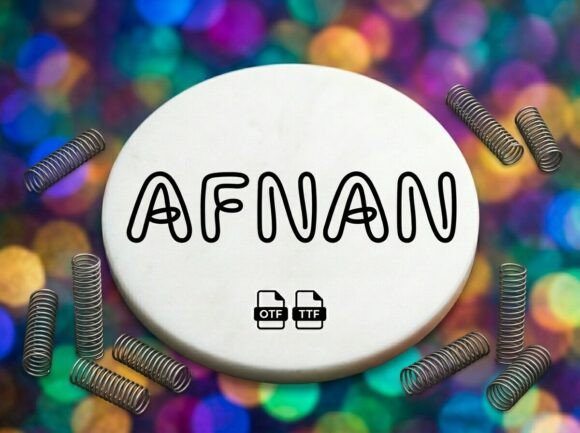
Discover the Delightful Afnan Font: A Playful Choice for Your Designs
Have you ever been in the middle of a design project, and suddenly, you just can’t seem to find the right font? I recall a particularly frustrating experience while working on a children’s event branding project. The client wanted something fun, playful, and approachable, but everything I tried seemed either too boring or too over-the-top. That’s when I stumbled upon the Afnan font, and it completely transformed my design. In this article, we’ll dive into the world of Afnan, exploring its features, uses, and what makes it an excellent choice for designers, crafters, and creative hobbyists.
Afnan Font: A Friendly and Playful Typeface
Afnan is a bubble font that exudes a sense of handcrafted joy and casual charm. Its monolinear, rounded letterforms are designed to evoke a soft and approachable look, making it perfect for projects that require a friendly and imaginative vibe. The font’s smooth curves and consistent visual weight ensure that it remains clean and professional, even in larger sizes.
What I Love About Afnan ✨
- ✅ Playful yet professional: Afnan strikes the perfect balance between fun and sophistication, making it suitable for a wide range of projects.
- ✅ Ease of readability: The font’s clear and rounded letterforms ensure that it remains legible, even at smaller sizes.
- ✅ Versatility: Afnan can be used for various design projects, from children’s event branding to DIY craft headers and social media graphics.
- ✅ OpenType features: Afnan supports OpenType features, allowing you to access a range of glyphs and stylistic alternates to enhance your designs.
While Afnan is an exceptional font, there are a few minor quirks to be aware of:
- 🤔 Limited use in formal contexts: Due to its playful nature, Afnan may not be the best choice for formal or corporate designs.
- 🤔 Glyph limitations: While Afnan has a range of OpenType features, it may not have an extensive library of glyphs compared to other fonts.
The Story Behind Afnan
Afnan was designed with the intention of creating a font that captures the essence of playful imagination. The designer aimed to craft a typeface that would evoke a sense of handcrafted joy and casual charm, making it perfect for designs that require a friendly and approachable look.
| Font Name | Afnan Font |
| Author | Creativeguru |
| What is Afnan font best used for? | Afnan is ideal for children’s event branding, playful product packaging, DIY craft headers, and engaging social media graphics. |
| Does Afnan support OpenType features? | Yes, Afnan supports OpenType features, allowing you to access a range of glyphs and stylistic alternates. |
In conclusion, Afnan is a delightful font that can add a touch of playful imagination to your designs. With its friendly energy, smooth curves, and consistent visual weight, it’s an excellent choice for designers, crafters, and creative hobbyists looking to create engaging and approachable designs.